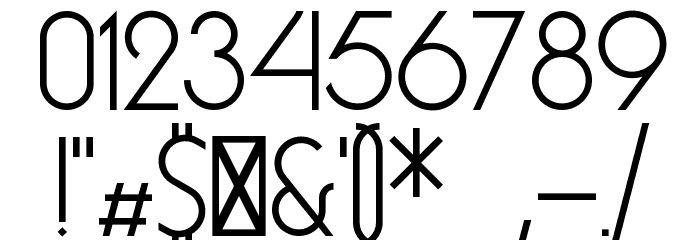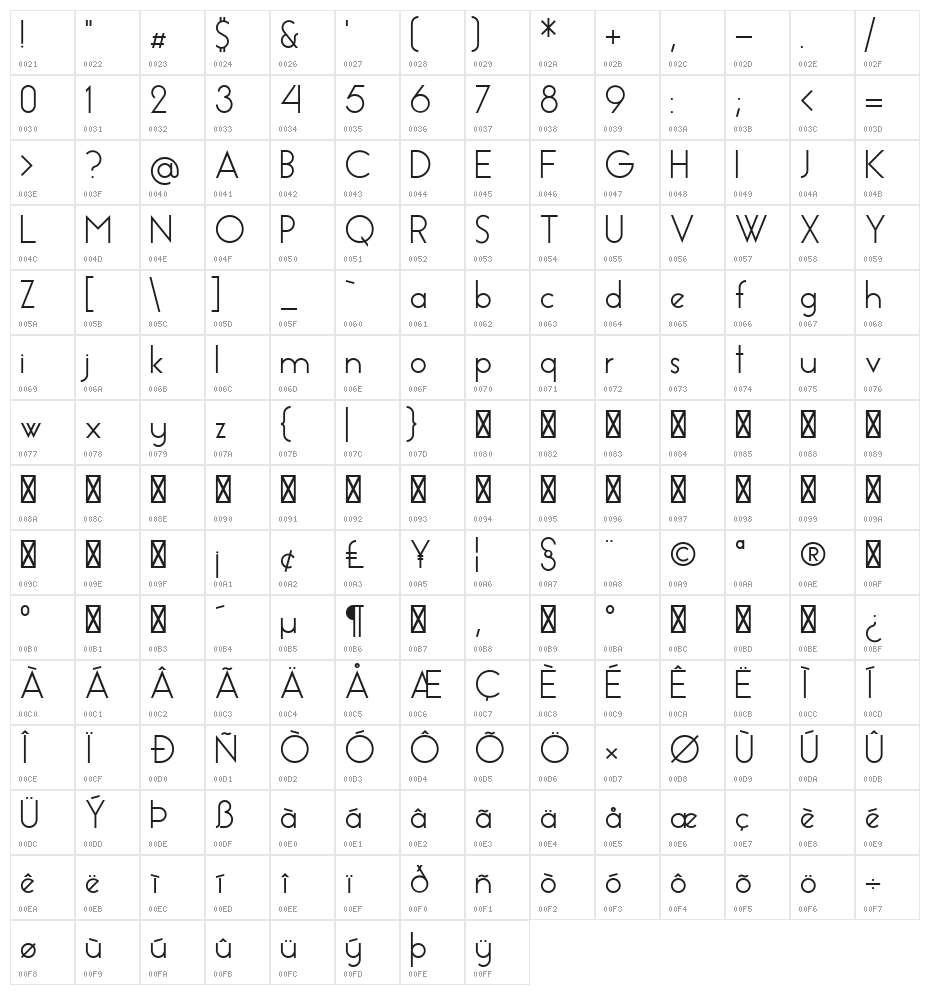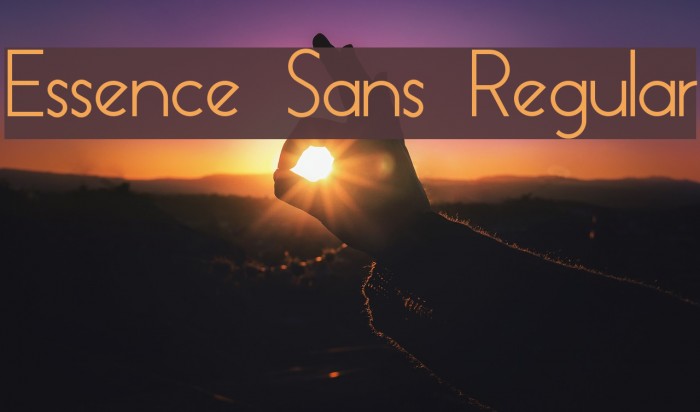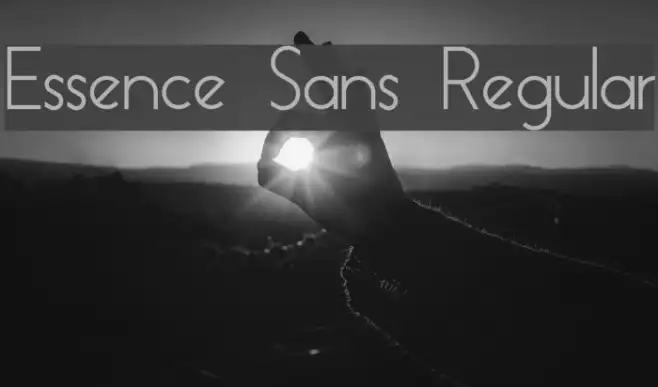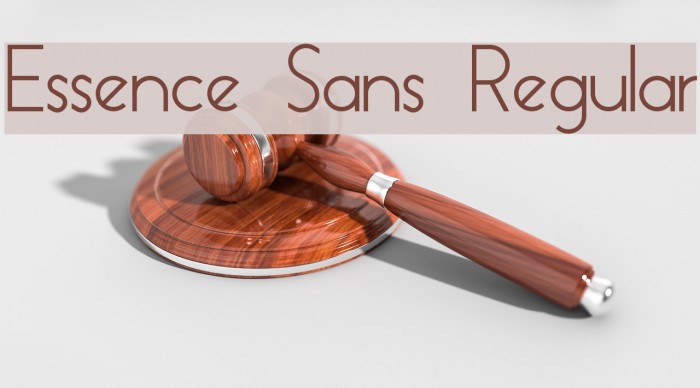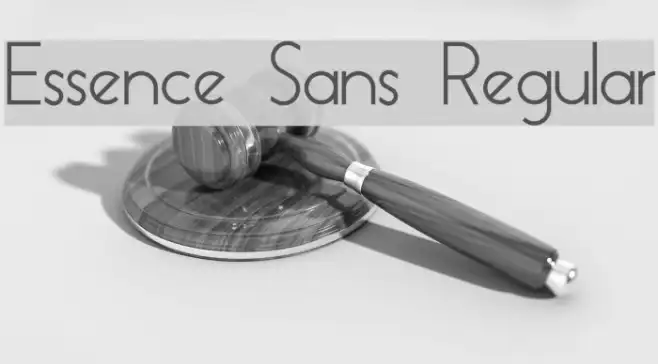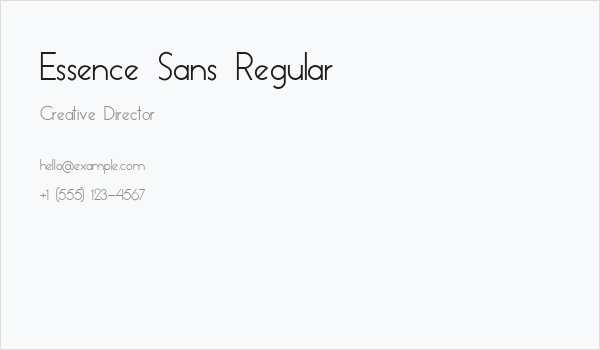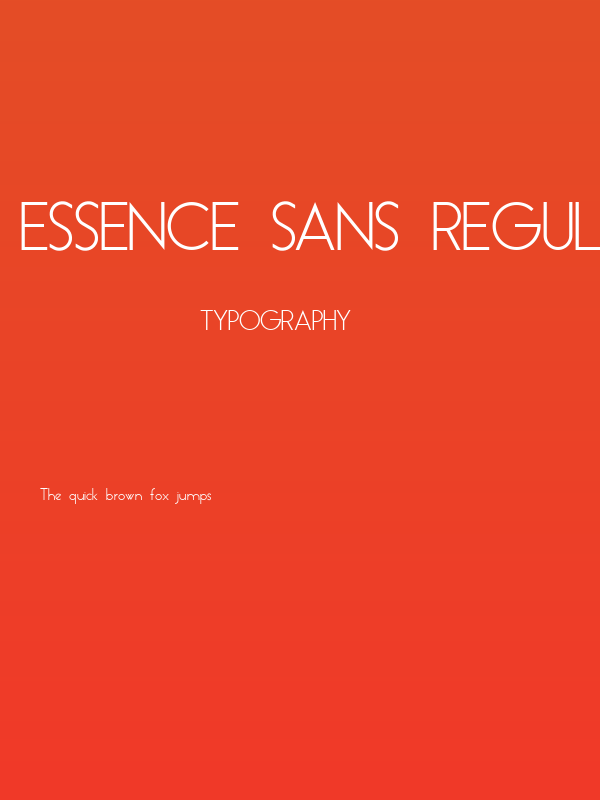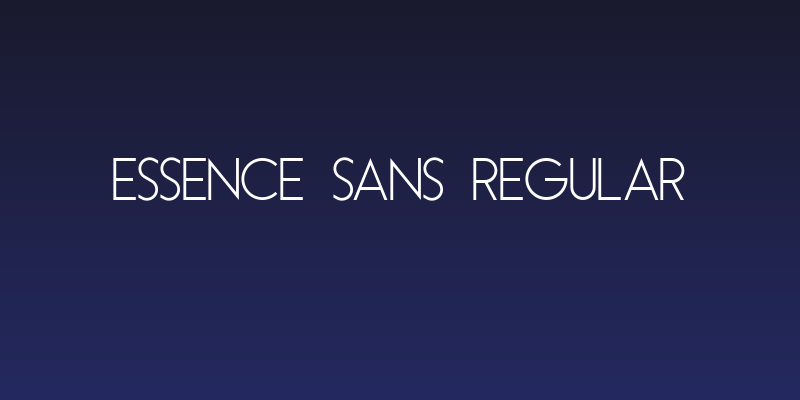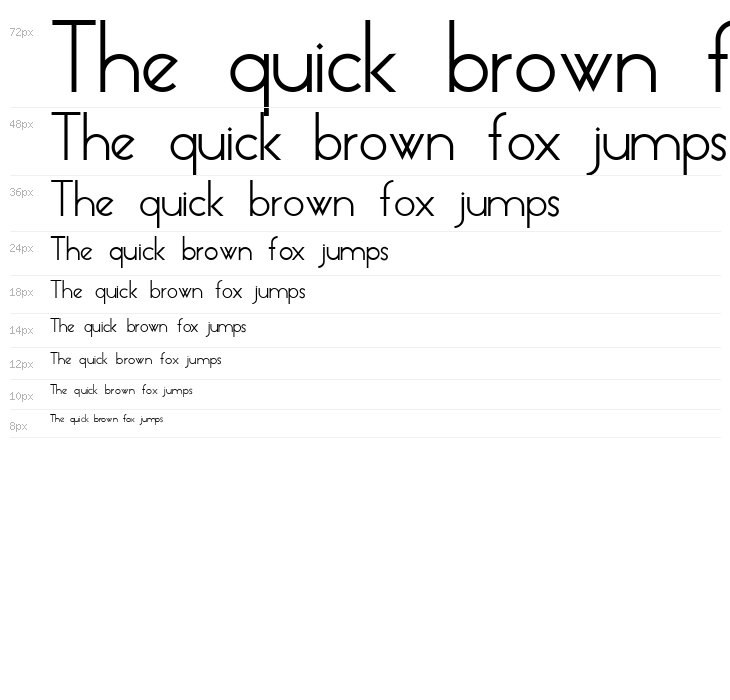
Essence Sans Regular Font
Essence Sans Regular Description
This font exhibits a clean and modern sans-serif style, characterized by its geometric shapes and uniform line thickness. The uppercase letters are tall and elegant, while the lowercase letters maintain a consistent height, contributing to a balanced and harmonious appearance. The numerals are clear and easily distinguishable, making them suitable for various applications. Special characters are designed with the same attention to detail, ensuring a cohesive look across all glyphs. The overall design is minimalistic, focusing on readability and simplicity.
| Proposed Projects | Ideal for branding, advertising, web design, and editorial projects where a contemporary and clean aesthetic is desired. |